34 Best Wide Fonts (Extra Wide & Extended Fonts)
34 Best Wide Fonts
1. Space Odyssey Extra Wide Fonts (TTF, OTF)
If you're looking for an eye-catching wide sans serif font, check out Space Odyssey Extra Wide Fonts. Space Odyssey is a modern display font that includes upper and lowercase characters, numbers, punctuation, multilingual support, and alternates, so you can create your own standout text.
2. Abesif Wide Sans Serif Font (TTF, OTF)
Abesif Wide Sans Serif Font delivers a clean and modern style that is excellent for titles, branding, headlines, and more.
3. Rinjani Extended Sans Serif Fonts (TTF, OTF)
Rinjani Extended Sans Serif Fonts contains over 300 glyphs and offers three different weights, so you have lots of choice when creating your text. Rinjani is a great display font, so use it whenever you need a wide font for large-scale projects.
4. Oscan Wide Bold Fonts (TTF, OTF)
Oscan Wide Bold Fonts is a terrific wide sans serif font that is all about simple, clean lines. A great choice for branding, typography posters, and more, Oscan comes in three styles: regular, rounded, and outline.
5. Brodaers Bold Extended Fonts (OTF)
From signage to banners, Brodaers Bold Extended Fonts will bring solidity to all your projects. This uppercase characters font contains over 400 glyphs, so you can have a lot of fun experimenting.
6. Rigamesh Wide Sans Serif Font (TTF, OTF)
Get inspired with the terrific Rigamesh Wide Sans Serif Font. It's a great addition to any design. This font features bold and energetic uppercase characters, punctuation, and numbers.
7. Mostest Wide Sans Serif Font (OTF)
Mostest Wide Sans Serif Font is as cool and fun as you can get, and that's why it's the perfect font for your next project. Mostest comes in seven widths and includes uppercase characters, numbers, punctuation, and multilingual support.
8. Marigo Wide Serif Font (OTF)
Marigo Wide Serif Font includes uppercase characters, numbers, punctuation, ligatures, alternates, and multilingual support—enough versatility for you to use in a range of projects.
9. BROAD Extended Fonts (TTF, OTF, WOFF)
How cool is BROAD Extended Fonts? This simple yet innovative typeface offers just enough extended characters to add unique touches to your text.
10. Glendale Extra Wide Fonts (TTF, OTF)
If you are looking for an eye-catching wide serif font, check out Glendale Extra Wide Fonts. Glendale offers three styles: light, regular, and bold.
11. Central Display Wide Serif Font (TTF, OTF)
Looking for a great headline font? Central Display Wide Serif Font is a great choice. Inspired by fashion magazines, its elegant style is also a good option for branding, logos, banners, posters, etc.
12. Dassie Bold Extended Fonts (TTF, OTF)
Dassie Bold Extended Fonts is a chunky display font that won't let you down when you need a powerful font for either personal or business projects.
13. Houstone Wide Bold Fonts (TTF, OTF)
Need a modern font with clean lines? Check out Houstone Wide Bold Fonts. It's the perfect font for logos, branding, stationery, headers, and more. This font contains uppercase characters only, as well as numbers, punctuation, and foreign language characters.
14. Belanda Wide Cursive Font (TTF, OTF, WOFF)
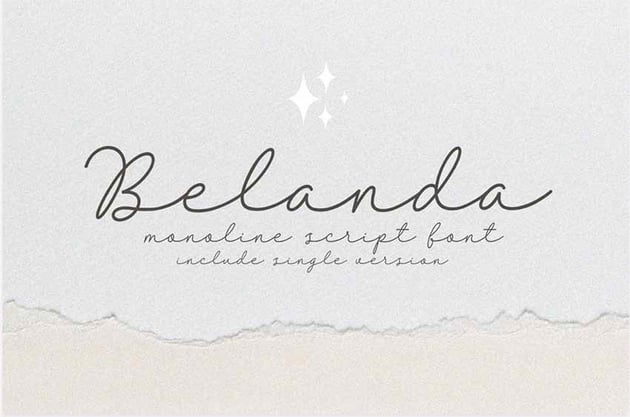
Bring a bit of whimsy to your next project when you use the stunning Belanda Wide Cursive Font. Belanda is an elegant typeface that's an excellent option for branding.
15. Piersob Extended Fonts (TTF, OTF)
Piersob Extended Fonts is an extended sans serif font with a futuristic look. The uppercase display font is an excellent option for brochures, packaging, posters, and more.
16. Nefarious Wide Serif Font (TTF, OTF)
Can't you see this unique font on the cover of a new album or book? Nefarious Wide Serif Font is a wonderful uppercase serif type that's bound to add some zing to all your projects.
17. Thugolatz Wide Bold Fonts (TTF, OTF)
The irresistible Thugolatz Wide Bold Fonts is one font you should have in your font library for all those times when you need a bold and powerful font to get the job done.
18. Be Serious Extended Sans Serif Fonts (TTF, OTF)
We had to include this awesome handwritten font. Be Serious Extended Sans Serif Fonts is an expanded sans that will fit perfectly for more personal projects.
19. Blastage Extended Fonts (TTF, OTF)
If you're looking for a sci-fi futuristic font for a movie title, you can't go wrong with Blastage Extended Fonts. This bold font will catch attention and introduce your text in a powerful way.
20. Korsson Wide Serif Font (TTF, OTF)
The strength of Korsson Wide Serif Font is the way it connects characters with smooth and flowing lines. Use this clean modern font for logos, branding, product packaging, and more.